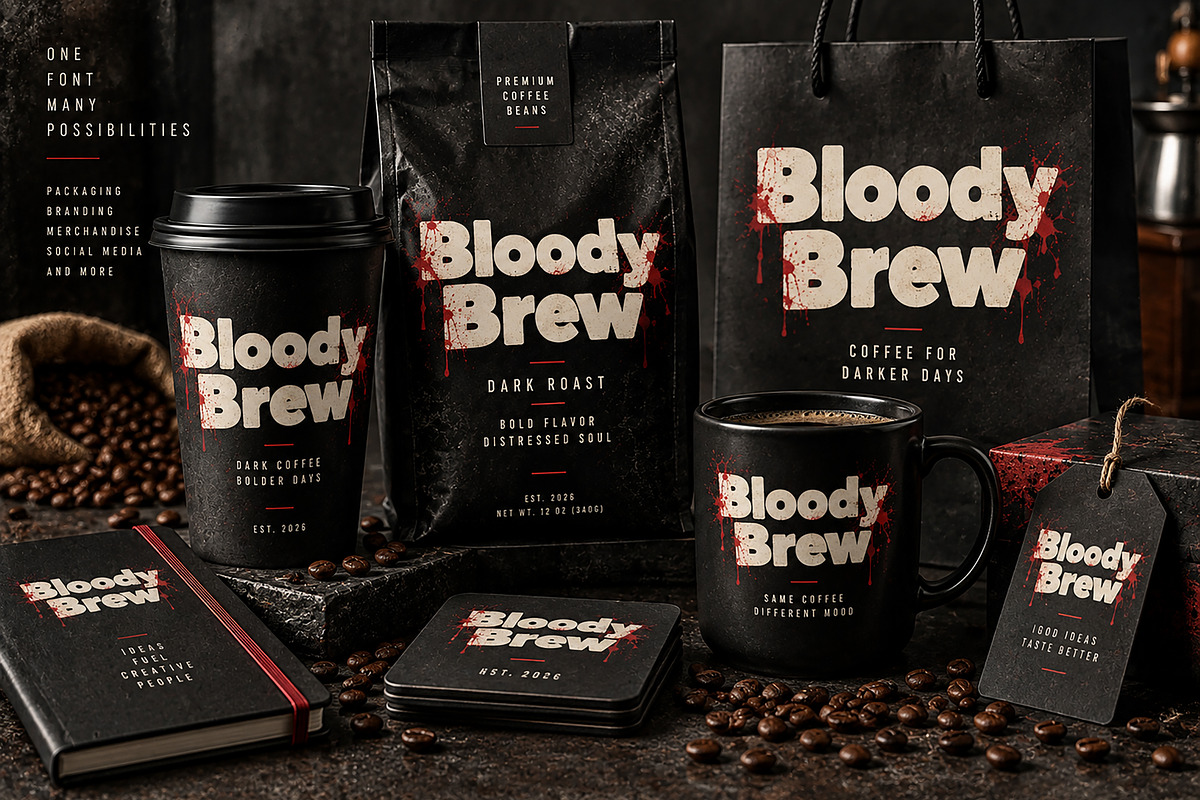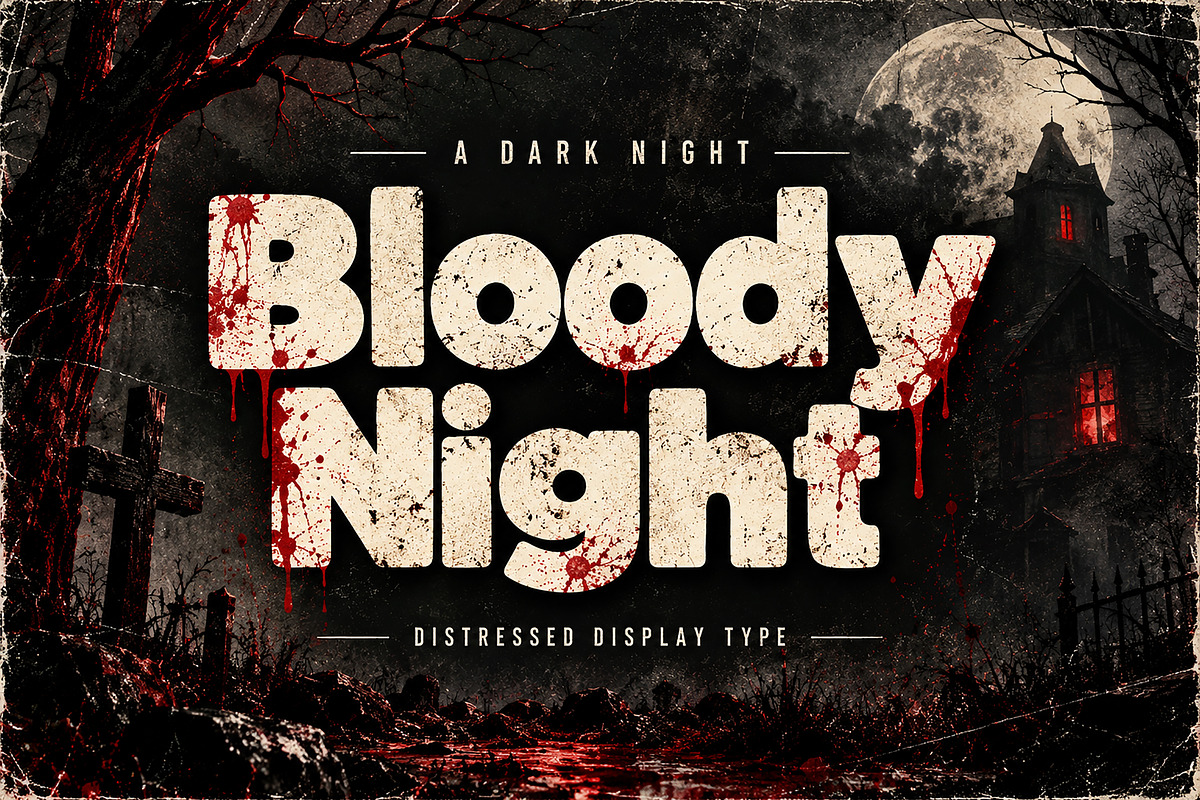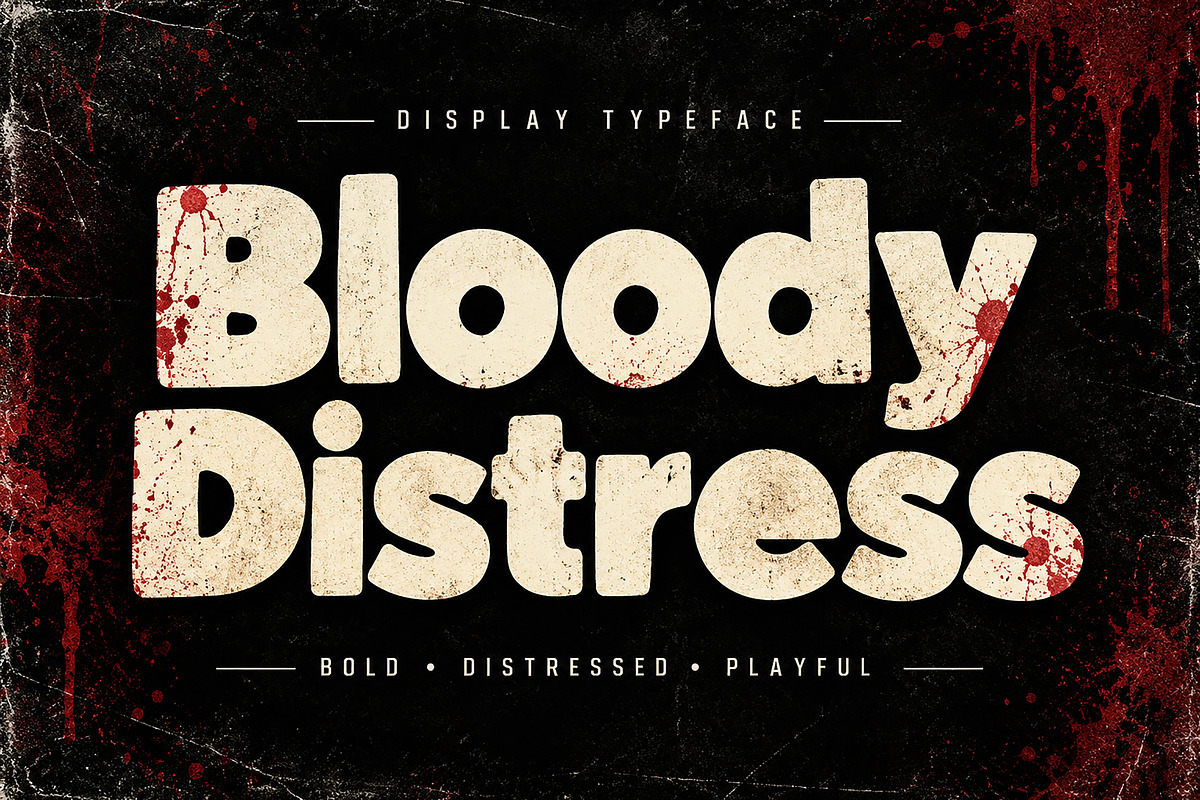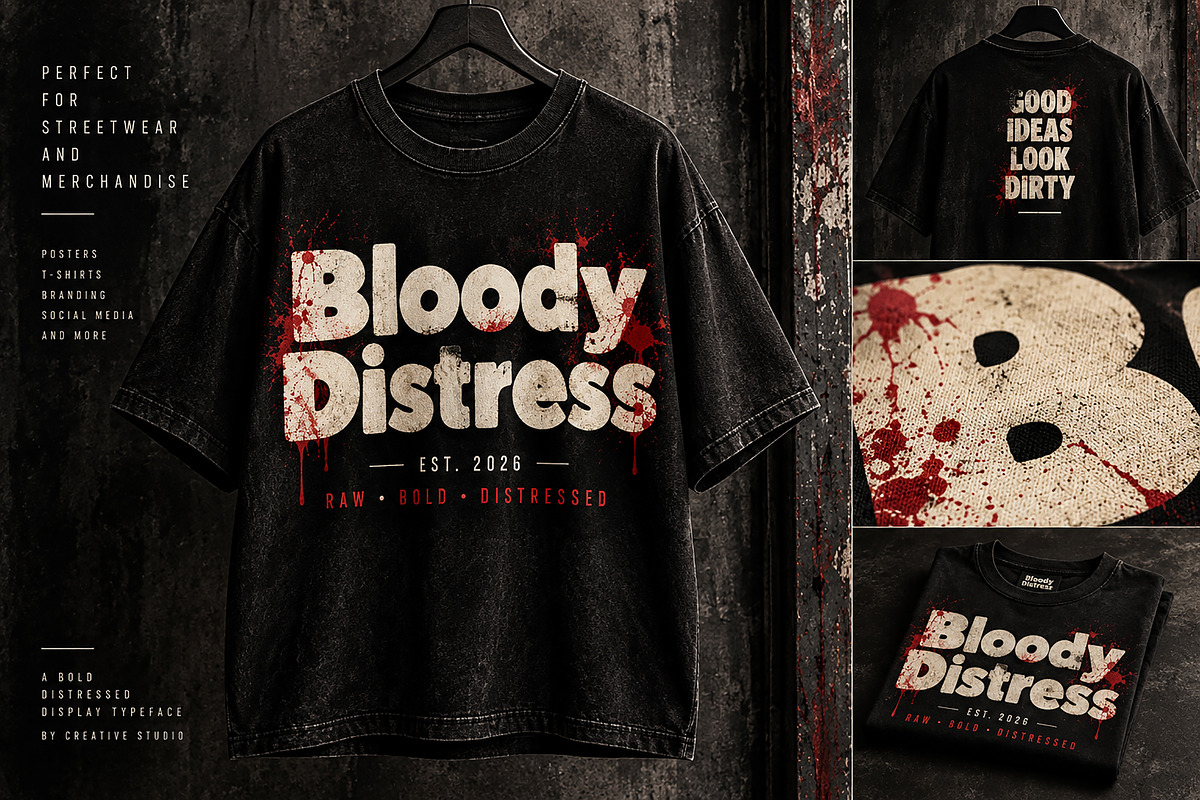
Bloody Distress Bold. Gritty.
Bold. Gritty. Distressed. Made to make your typography stand out.
Bloody Distress is a bold and eye-catching distressed display font designed to bring a raw, playful, gritty personality to your creative projects. Its chunky letterforms, irregular details, and worn texture-inspired character make it perfect for designs that need a strong visual impact.
This versatile display typeface works especially well for T-shirt designs, streetwear graphics, Halloween artwork, horror posters, album covers, branding, packaging, labels, stickers, social media graphics, merchandise, and other bold typography projects.
Whether you're creating a dark-themed brand identity, edgy apparel design, poster artwork, or attention-grabbing social media content, Bloody Distress gives your typography a distinctive and memorable look.
T-Shirt & Apparel Designs
Streetwear Graphics
Halloween Designs
Horror Posters
Album & Music Artwork
Logo & Branding Projects
Packaging & Product Labels
Stickers & Merchandise
Posters & Flyers
Event Artwork
Creative Advertising
Print & Digital Projects
Font Name: Bloody Distress
Style: Bold / Distressed / Display
Bloody Distress is a strong choice for designers looking for a chunky, expressive display font that instantly grabs attention and adds personality to their typography.